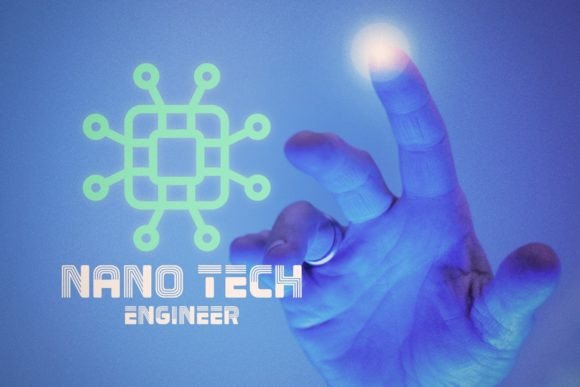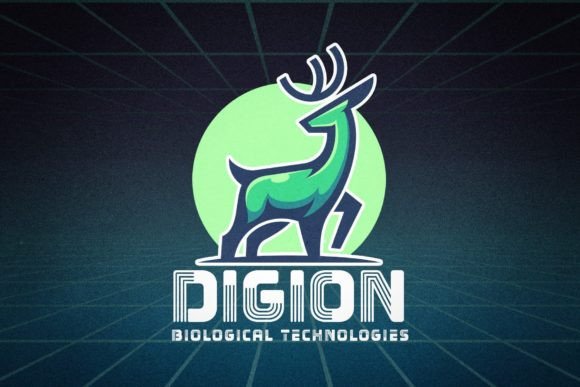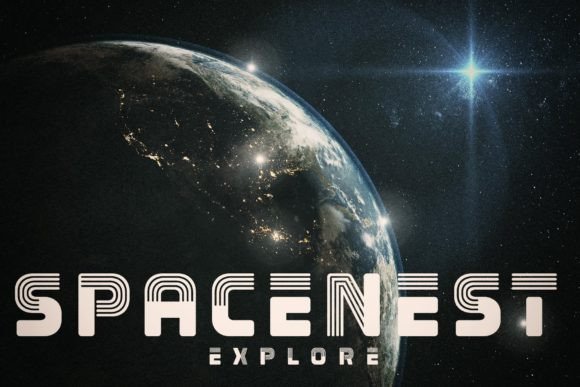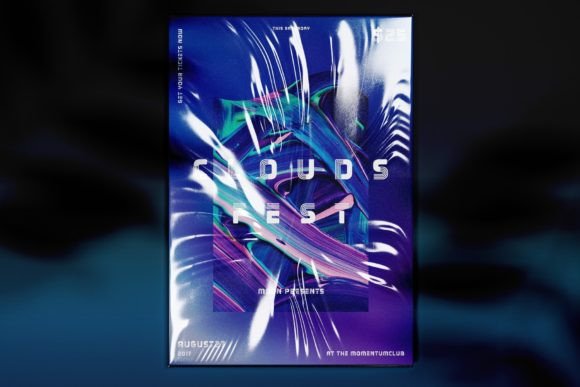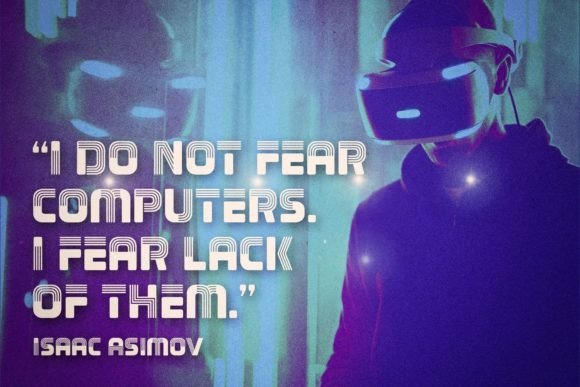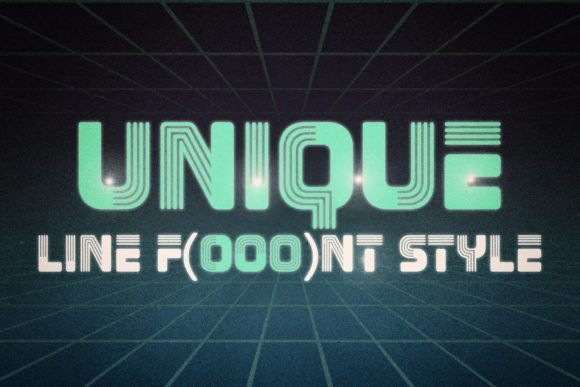
Introduction to Moleth Font
Have you ever been working on a project, pouring your heart and soul into it, and suddenly you need that one perfect element to bring it all together? For designers, this moment can be a game-changer. Whether it’s a futuristic sci-fi poster or a sleek tech website, the right font can elevate your entire design and leave a lasting impression.
That’s where the Moleth Font comes in – a cool and futuristic display font that’s perfect for designers looking to add a modern and bold touch to their creative projects. With its high-quality design and transparent background, this font is a valuable resource for any designer looking to take their work to the next level.
Key Features of Moleth Font
- High-quality design resource with a unique, creative touch suitable for various projects.
- Features a transparent background, making it ideal for use in creative projects that require a clean and minimalist look.
- Includes a range of glyphs and characters, including international characters and symbols.
- Supports various languages and is suitable for use in multilingual projects.
Honest Review: Moleth Font
I recently stumbled upon the Moleth Font while searching for a design resource for a creative project. As a designer, I appreciate high quality fonts that can elevate the aesthetic of any visual content.
What works well about the Moleth Font is its versatility. It comes in a range of weights and styles, making it suitable for a variety of design applications. The font also features a transparent background, which makes it easy to customize and pair with other design elements.
- ✨ High-quality design: The Moleth Font has a clean and modern design that is sure to impress.
- ✨ Versatile: The font comes in multiple weights and styles, making it perfect for a range of design projects.
However, there are a few limitations to the Moleth Font. One of the main issues is that it may not be suitable for complex or highly detailed designs. Additionally, the font may not be compatible with older software or operating systems.
Overall, I would recommend the Moleth Font to designers who are looking for a high-quality, versatile font for their creative project. With its transparent background and range of weights and styles, it’s a great resource for any design application.
How to Use Moleth Font
The Moleth Font is a high-quality design resource that can be used in various creative projects. To get the most out of it, follow these steps.
Tips for Getting the Most Out of Moleth Font
To get the most out of the Moleth Font, use it with a transparent background to create a seamless design. You can also experiment with different font sizes and styles to add visual interest to your project.
The Moleth Font is ideal for:
- Branding
Alternatives to Moleth Font
Montserrat compares to Moleth Font by offering a more contemporary feel and a wider range of font weights, making it a versatile choice for designers.
Great Vibes is a beautiful script font perfect for creative projects that need a touch of elegance and sophistication. It’s a free download, making it an excellent option for designers on a budget. When to use: quotes, titles, and headings in wedding invitations, advertisements, and other design materials.
Great Vibes compares to Moleth Font by offering a more whimsical and artistic feel, while still maintaining a high level of quality and readability.
Yes, the Moleth Font has a transparent background, making it ideal for use in graphic design projects where a clear background is required. This also allows designers to easily combine the font with other design elements, such as images and shapes.